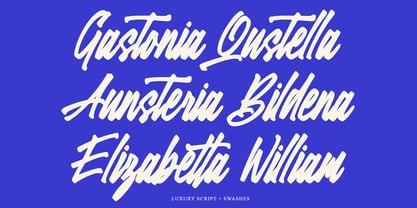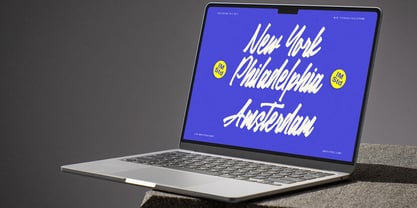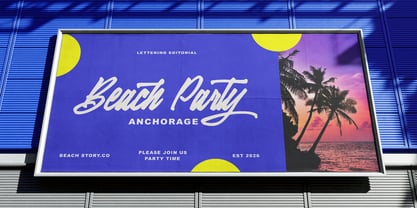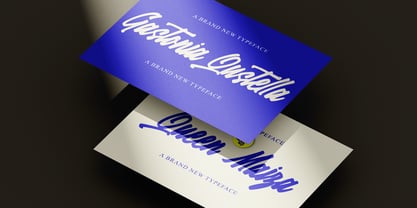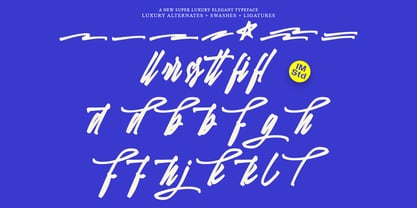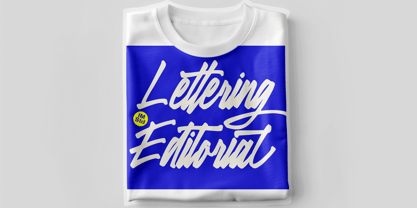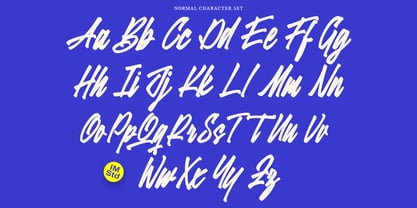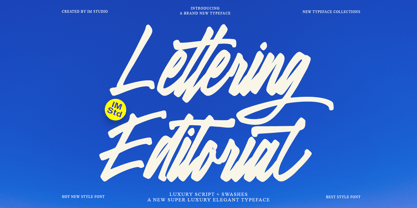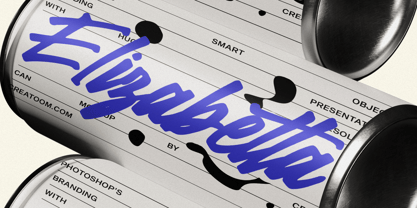
Lettering Editorial
por IM Studio
La familia tipográfica Lettering Editorial fue diseñada por Ikhsan Maulana y publicada por IM Studio. Lettering Editorial contiene 2 estilos y opciones de paquete familiar. Más información sobre esta familia
Lettering Editorial draws inspiration from vintage and modern retro styles, blended with a classic, traditional American aesthetic.
(Includes script and swashes)
Lettering Editorial allows you to create instant, convenient hand-lettered text. It is ideal for logos, hand-lettered quotes, product packaging, headlines, posters, merchandise, social media content, and greeting cards.